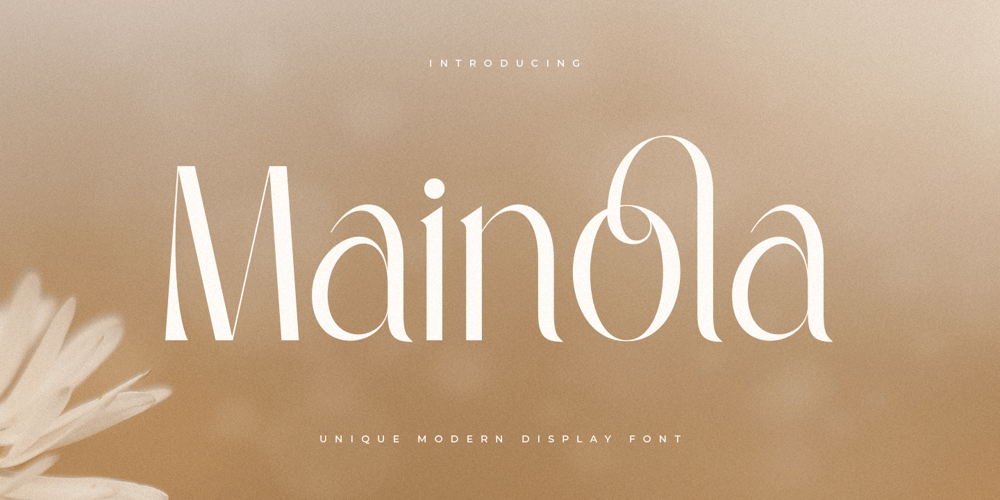
Maniola Font Family was designed by Zamroni Hamzah and published by Sensatype Studio. Maniola contains 1 styles and family package options. A Unique Display Logo Font that we created special for Beauty and Modern branding needs that will give you more elegant look.We prepared any alternate characters to help you create unlimited variations for your creative needs.Maniola Display Logo font ready with: Any options to get creative variations (combination of Alternates) Preview as a inspirations that you can do with Maniola font Ready with Lowercase and Uppercase characters Wish you enjoy our font. ๐